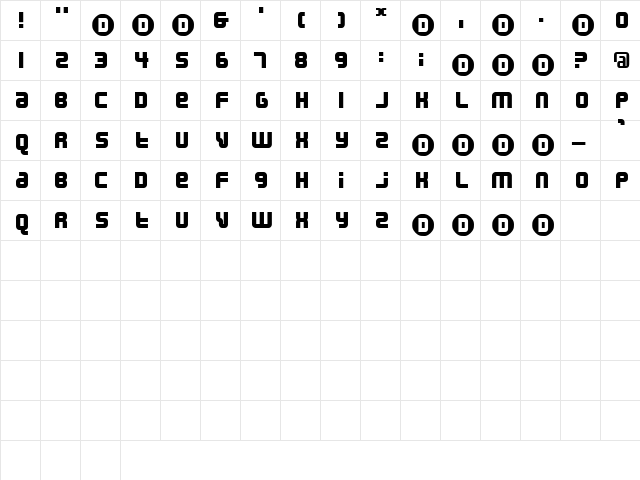
MiniMetro Regular
Design Context for MiniMetro Typeface
MiniMetro offers clean, dependable letterforms without strong stylistic allegiance, making it a practical choice for designers who need flexibility.